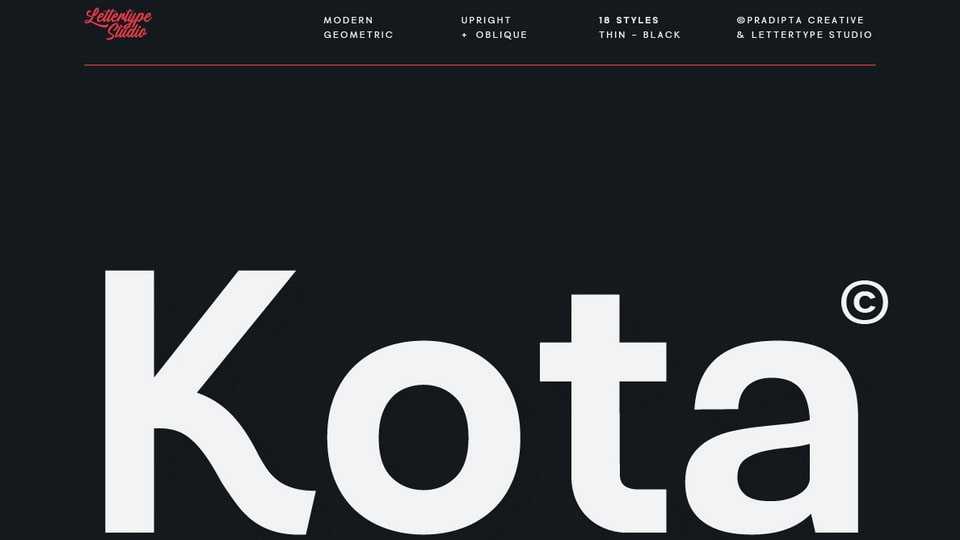
Download Kota Sans font, a modern geometric sans-serif designed for branding, logos, headlines, and user interfaces. Its structure is strong and precise for crisp wordmarks.
Designer: Lettertype Studio